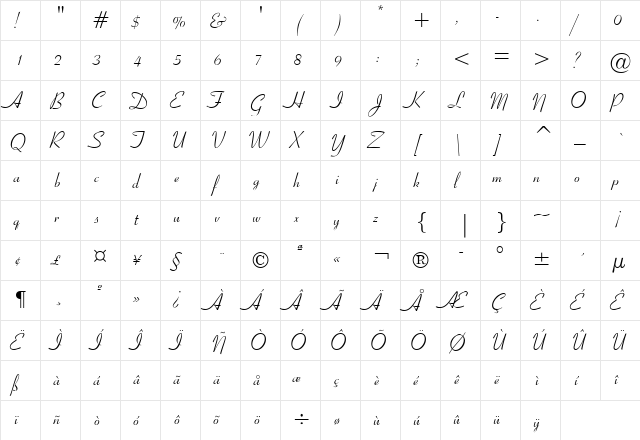
Bow Normal Font Preview
Bow Normal
Bow Normal Font Details
Design Context for Bow Typeface
Bow is a composed and adaptable typeface that performs quietly and consistently across a wide range of design contexts.
Pro Tip: Use Bow in both headline and body roles to test its range before committing to a single application.